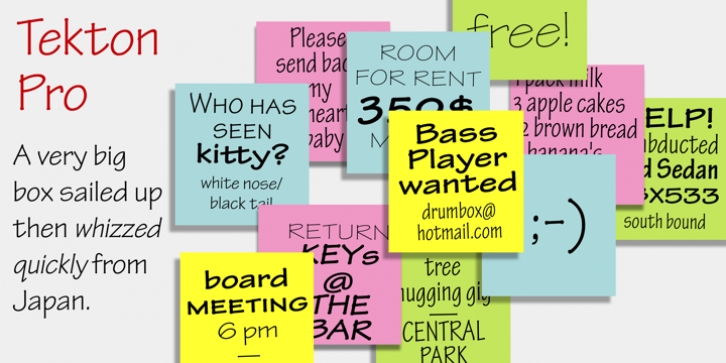
Based on the hand lettering of West Coast architect Frank Ching, who wrote out the text for his books, Tekton Regular is an Adobe Originals typeface designed by David Siegel in 1989.
Tekton Bold was designed by Adobe Type Staff’s Jim Wasco and added to the package in 1990.
Use Tekton in architectural drawing/design software to match the feel of the type with the designer’s plans, or to give the page an architectural or informal handwritten flavor. Tekton is useful for headlines and display work, as well as informal notices and correspondence.